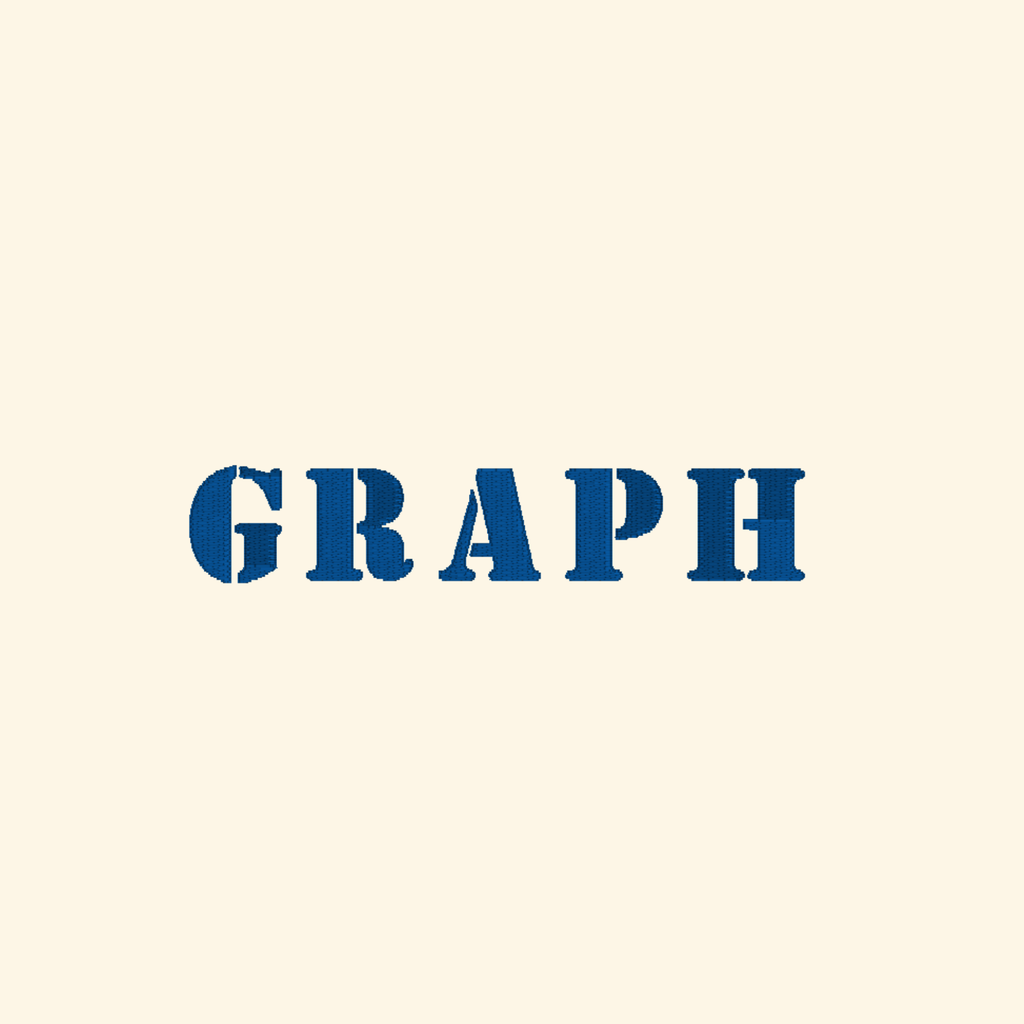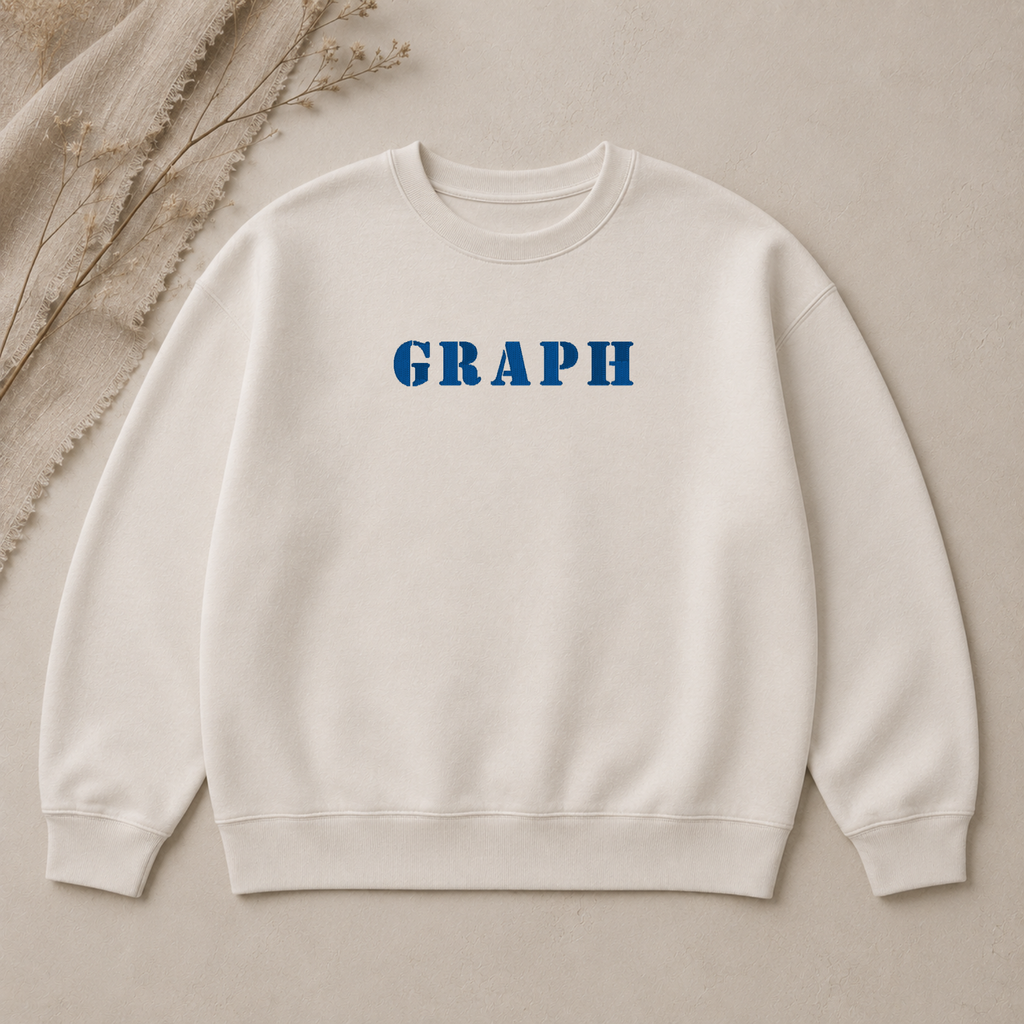
Graph embroidery font, Stencil embroidery font, Machine embroidery font, 7 Formats + 7 Sizes
🪡Graph - premium embroidery font.
Take your projects to the next dimension with Graph - professional machine embroidery alphabet! Specially digitized for high-impact results, this font is the perfect choice for creating any item that requires embroidery.